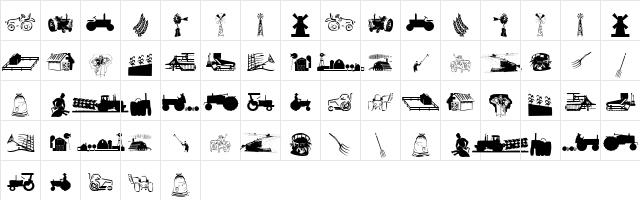
Farmfont Regular
Design Context for Farmfont Typeface
Farmfont is a composed and adaptable typeface that performs quietly and consistently across a wide range of design contexts.